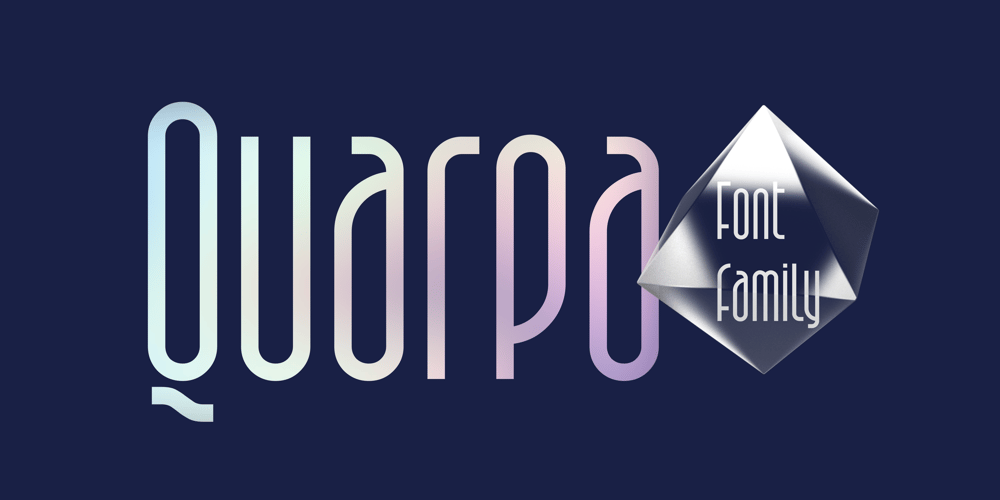
Quarpa
Quarpa font
Quarpa Font Family was designed by Taras Pasternak and published by Pasternak. Quarpa contains 14 styles and family package options. Name: QuarpaStyles: 6 stylesGlyphs: 394Year: 2021This lofty font features a compact structure as well as a unique combination of rounded corners and square contours. The collection includes six styles: Extra Light, Light, and Semi Light that will ensure elegance; Regular, Medium, Semi Bold and Bold suitable for a solid design. Each of them also has Italic variation.It’s an ideal option for outstanding corporate images, logos, promos, or video presentations.Quarpa has proper kerning, multi-lingual support, and ligatures.Languages:Afrikaans, Albanian, Asu, Basque, Bemba, Bena, Bosnian, Catalan, Cebuano, Chiga, Colognian, Cornish, Corsican, Croatian, Czech, Danish, Embu, English, Esperanto, Estonian, Faroese, Filipino, Finnish, French, Friulian, Galician, German, Gusii, Hungarian, Icelandic, Ido, Indonesian, Interlingua, Irish, Italian, Javanese, Jju, Kabuverdianu, Kalaallisut, Kalenjin, Kamba, Kikuyu, Kinyarwanda, Kurdish, Latvian, Lithuanian, Lojban, Low German, Lower Sorbian, Luo, Luxembourgish, Luyia, Machame, Makhuwa-Meetto, Makonde, Malagasy, Malay, Maltese, Manx, Maori, Meru, Morisyen, North Ndebele, Northern Sotho, Norwegian Bokmål, Norwegian Nynorsk, Nyanja, Nyankole, Occitan, Oromo, Polish, Portuguese, Romanian, Romansh, Rombo, Rundi, Rwa, Samburu, Sango, Sangu, Sardinian, Scottish Gaelic, Sena, Shambala, Shona, Slovak, Slovenian, Soga, Somali, South Ndebele, Southern Sotho, Spanish, Swahili, Swati, Swedish, Swiss German, Taita, Taroko, Teso, Tsonga, Tswana, Turkmen, Upper Sorbian, Vunjo, Walloon, Walser, Xhosa, Zulu